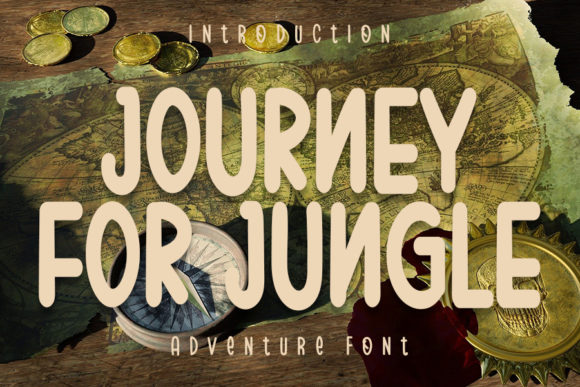
Step into the realm of typography elegance with Journey for Jungle, a captivating sans serif font family crafted by the visionary FL Space. Unleash your creativity and embark on a typographic expedition like no other, where simplicity and allure intertwine to create a visual masterpiece.
With its clean lines, meticulously sculpted letterforms, and an air of timeless sophistication, Journey for Jungle stands as a testament to the power of understated beauty. Its versatile nature makes it a font that adapts seamlessly to a myriad of design landscapes, from the corporate world to the realm of personal expression.
Journey for Jungle is a font that speaks volumes, even in its silence. Its refined presence commands attention on business shirts, where it exudes an aura of professionalism and elegance. Its clarity and readability make it an ideal choice for corporate branding, marketing materials, and presentations, ensuring your message resonates with impact and clarity.
But Journey for Jungle's allure extends far beyond the confines of the business world. Its versatility shines in personal projects, whether you're crafting invitations, designing social media posts, or creating unique artwork. Its clean lines and timeless style lend a touch of sophistication to any creative endeavor, transforming your designs into works of art.
With Journey for Jungle, the possibilities are boundless. Its endless variations invite you to explore the depths of your creativity, unlocking a world of typographic possibilities. Experiment with different weights, styles, and combinations to create a visual symphony that reflects your unique vision and style.